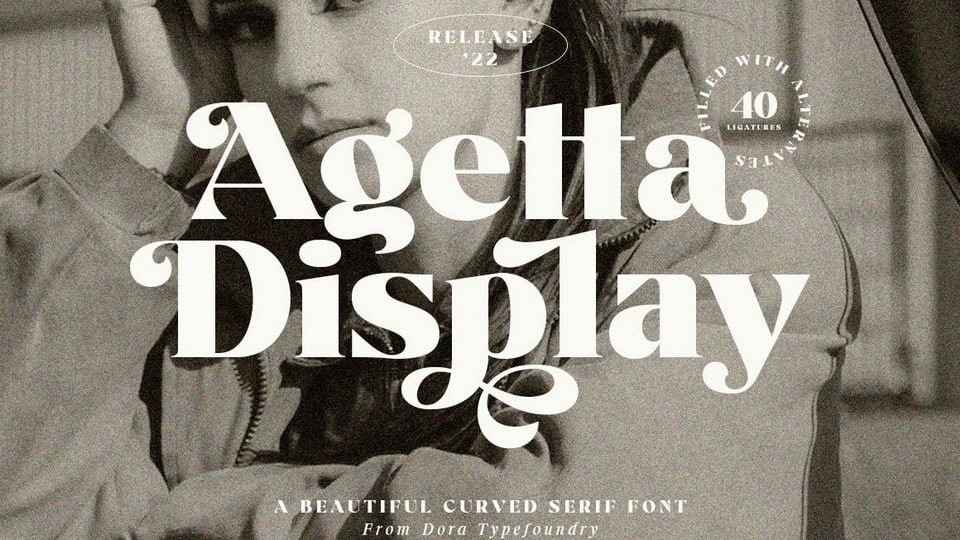
Download Agetta Display font, a bold vintage-style serif typeface with strong confidence. Agetta font looks amazing in both large and small settings and is perfect for your design needs.